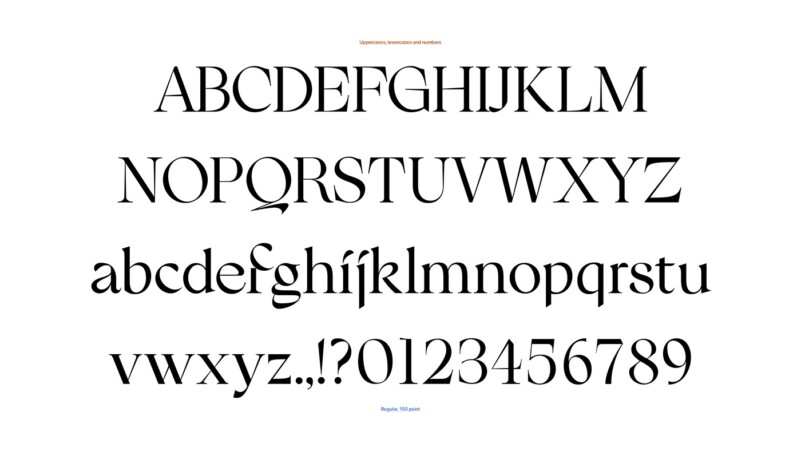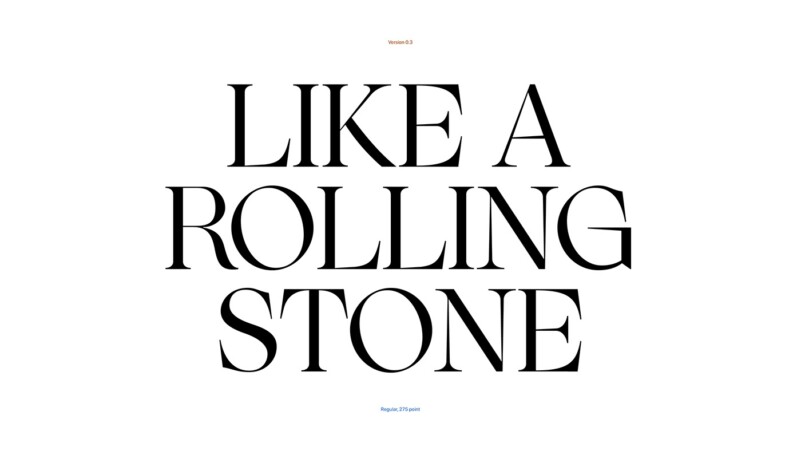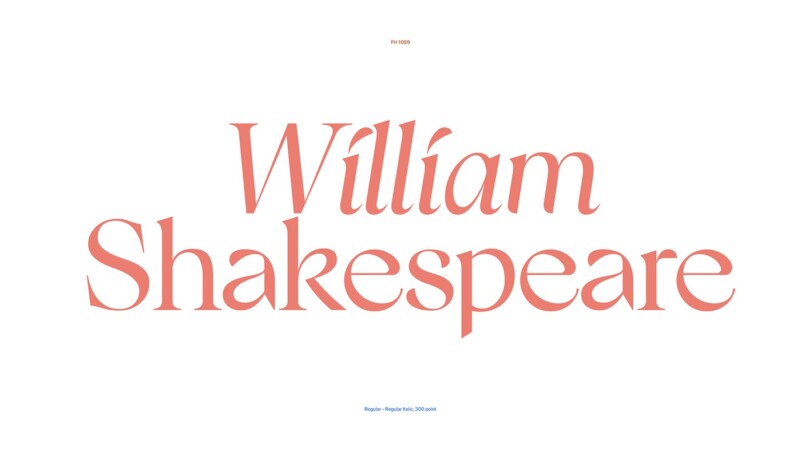
FH 1089 Font
FH 1089 Font is elegant serif font from Fatih Hardal that will give your projects a touch of luxury and style. It has been designed by the inspiration of change which has started in the middle of the 18th century. The first dashed Serif font, Fleischman’s Roman, was designed in 1739. And a new form has been designed by using the contrast weights of it. Although the traditional structure has been used, it is possible to see various innovations by looking at lower cases. It has been put a calligraphic complexion on by using angles on circle forms.